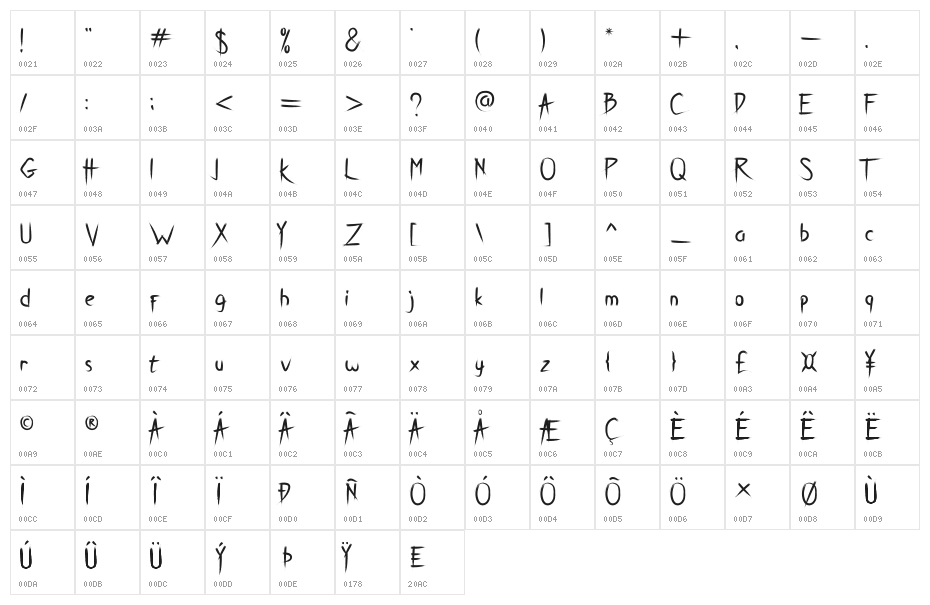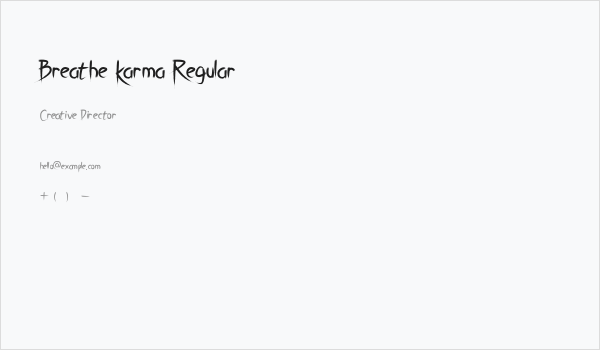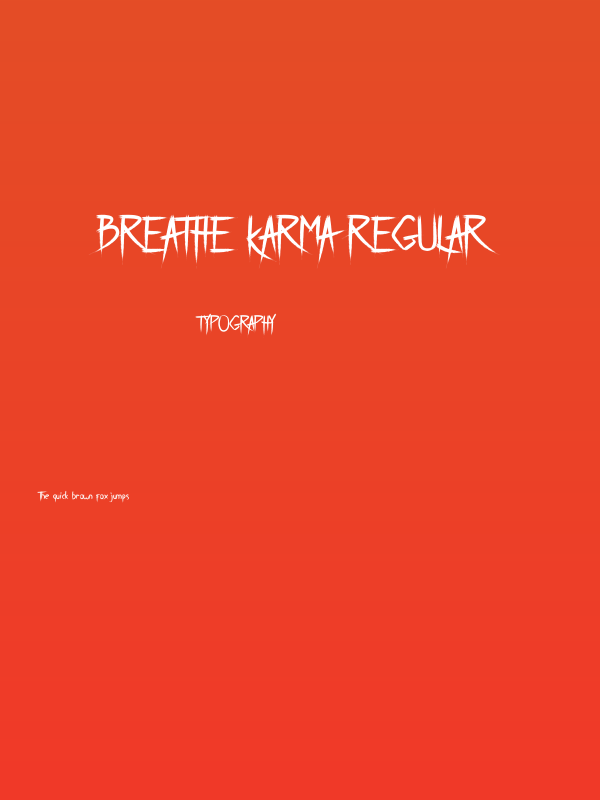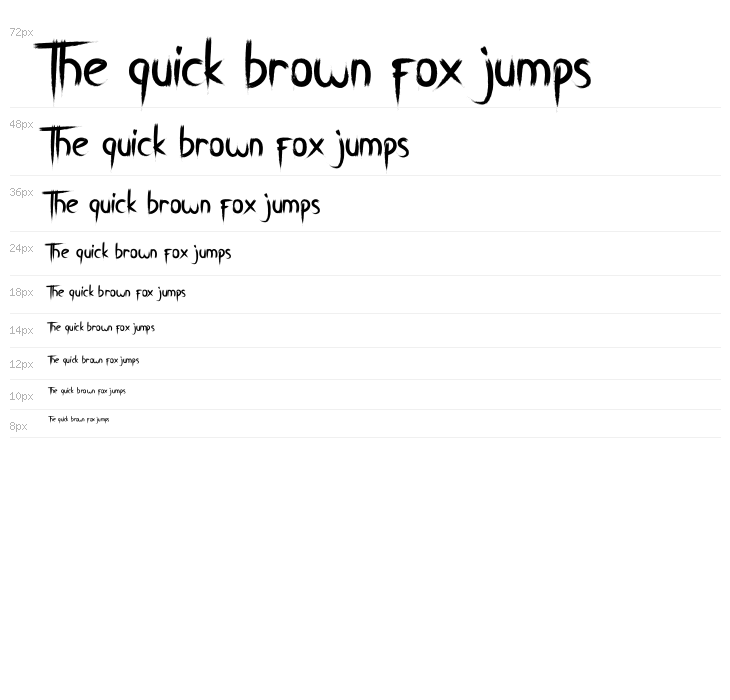
Breathe Karma Regular Font
Breathe Karma Regular Description
This font features a distinctive, edgy style with sharp, elongated strokes that give it a dramatic and intense appearance. The characters have a hand-drawn quality, with irregular lines and a slightly distressed texture, suggesting a sense of movement and energy. The uppercase letters are particularly striking, with exaggerated vertical lines and angular forms that create a bold, impactful look. The lowercase letters maintain this dynamic style, though they are slightly more subdued, providing a nice balance. The numerals and special characters follow the same aesthetic, ensuring consistency throughout the typeface. This font is ideal for projects that require a strong visual statement, such as posters, album covers, or branding for edgy or alternative products.
| Proposed Projects | Ideal for posters, album covers, branding for edgy or alternative products. |